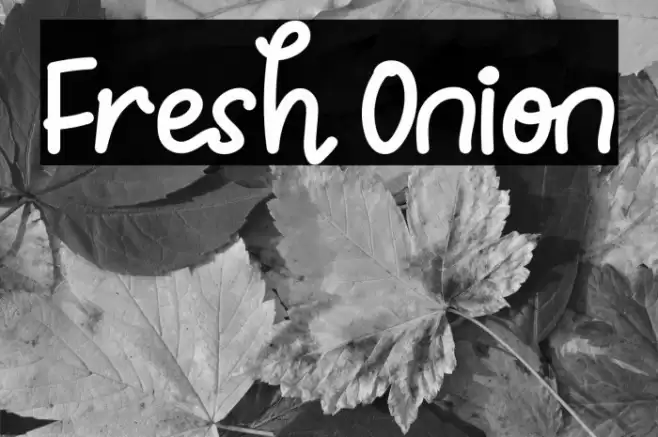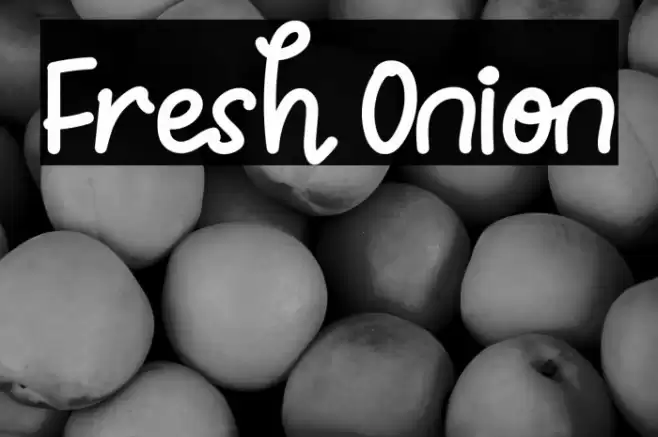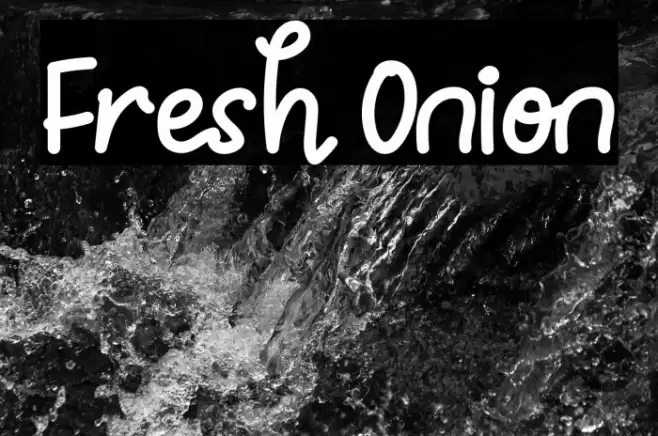
Fresh Onion Font
Fresh Onion Description
This font features a playful and casual handwritten style, characterized by its rounded and slightly irregular letterforms. The uppercase and lowercase letters maintain a consistent flow, giving it a friendly and approachable appearance. The numerals and special characters follow the same style, ensuring uniformity across all glyphs. Its informal nature makes it suitable for projects that aim to convey warmth and creativity. The strokes are moderately thick, providing good readability while maintaining a relaxed aesthetic.
A playful, casual handwritten font with rounded, irregular letterforms from Regular fonts.
- Proposed Projects: Ideal for children's books, greeting cards, informal invitations, and creative branding.
- Overall Style: Casual
- Use Case: Headlines, Logos, Informal Text